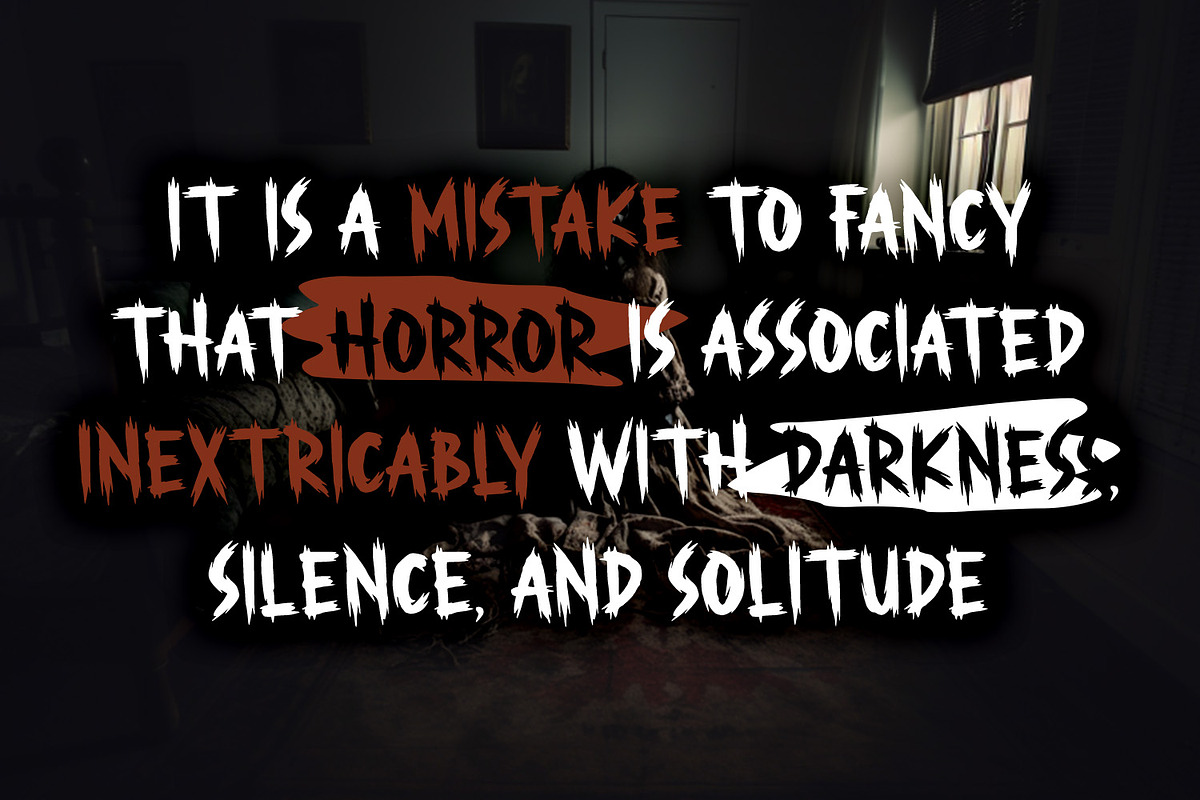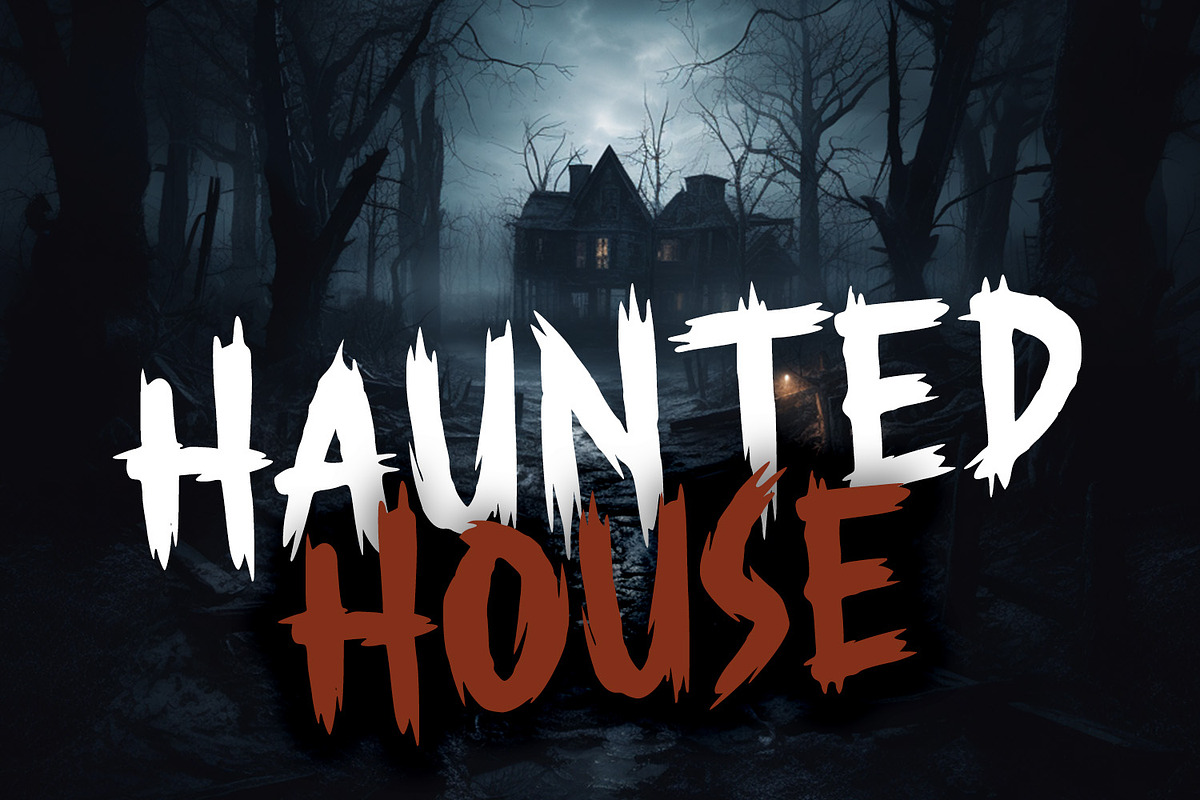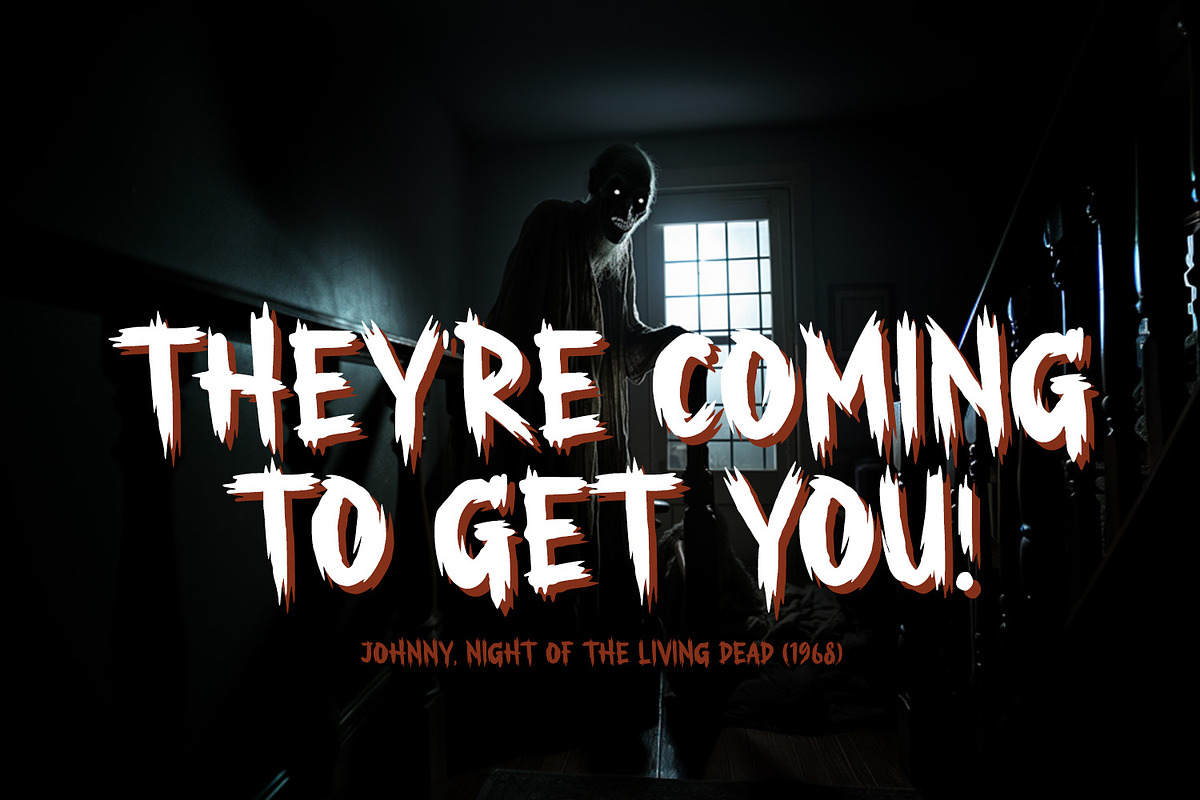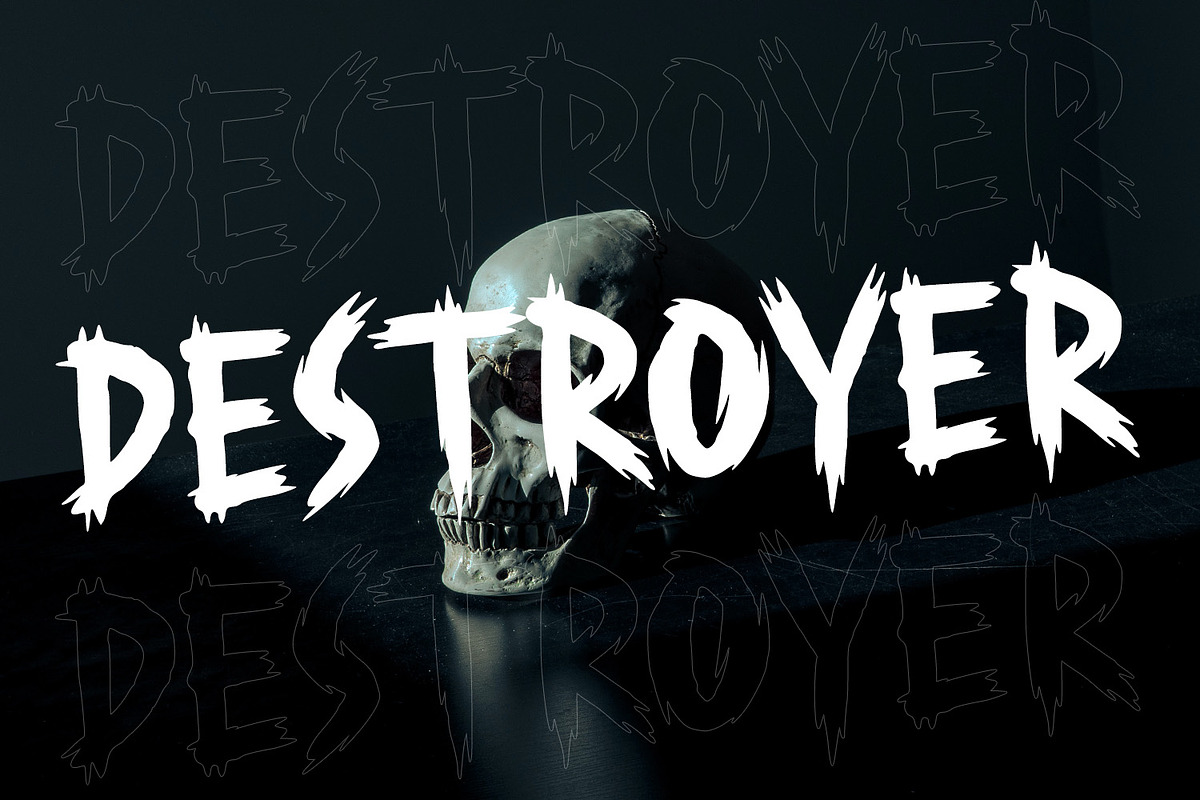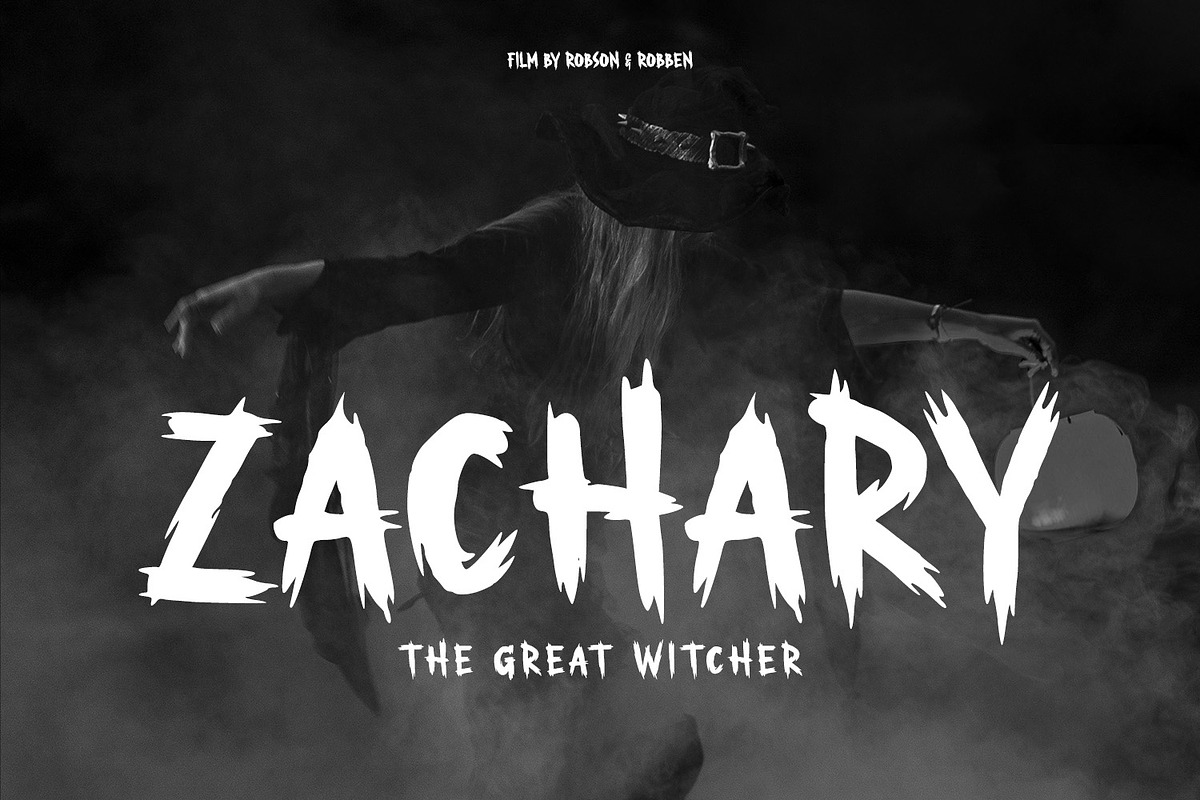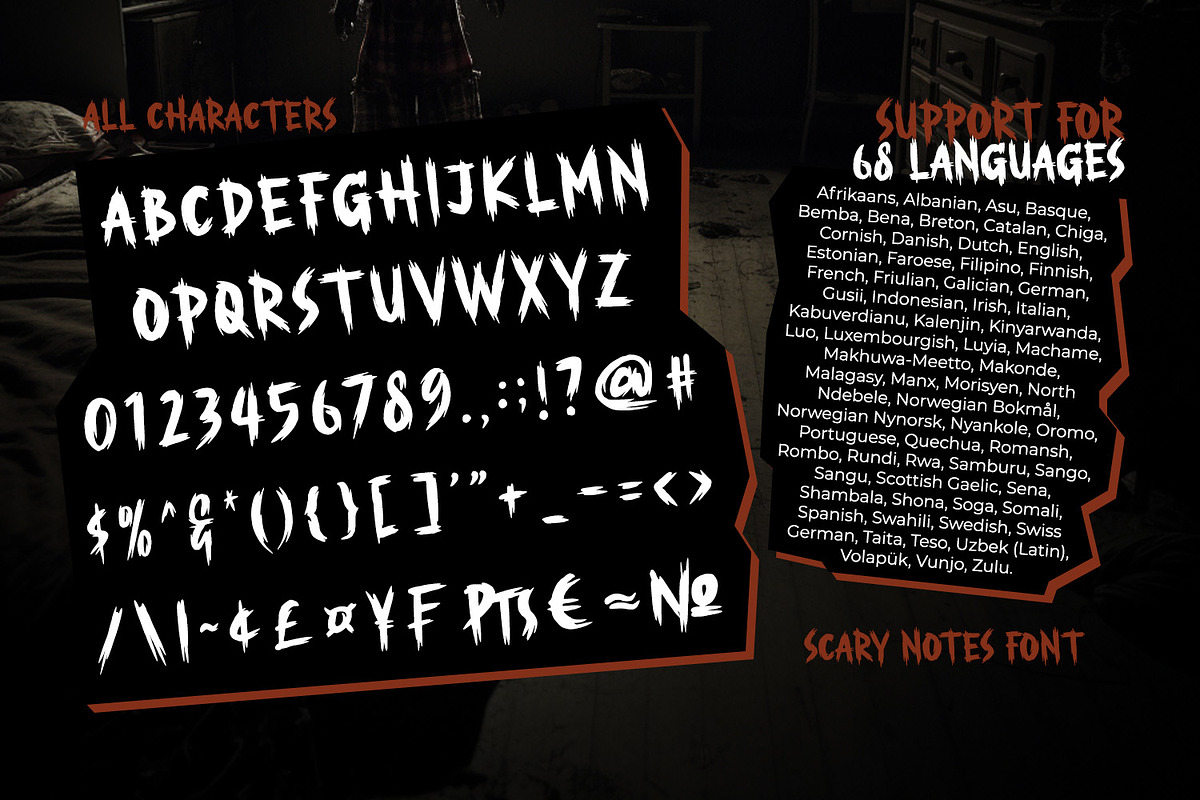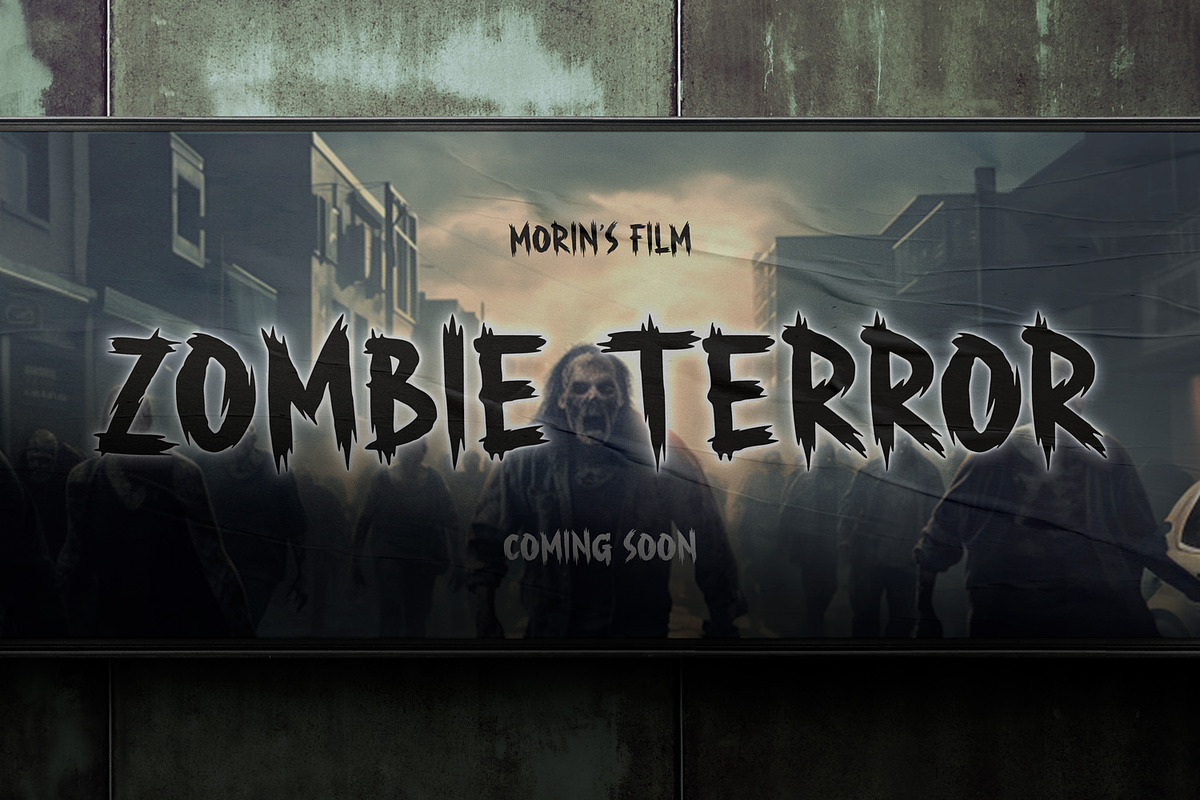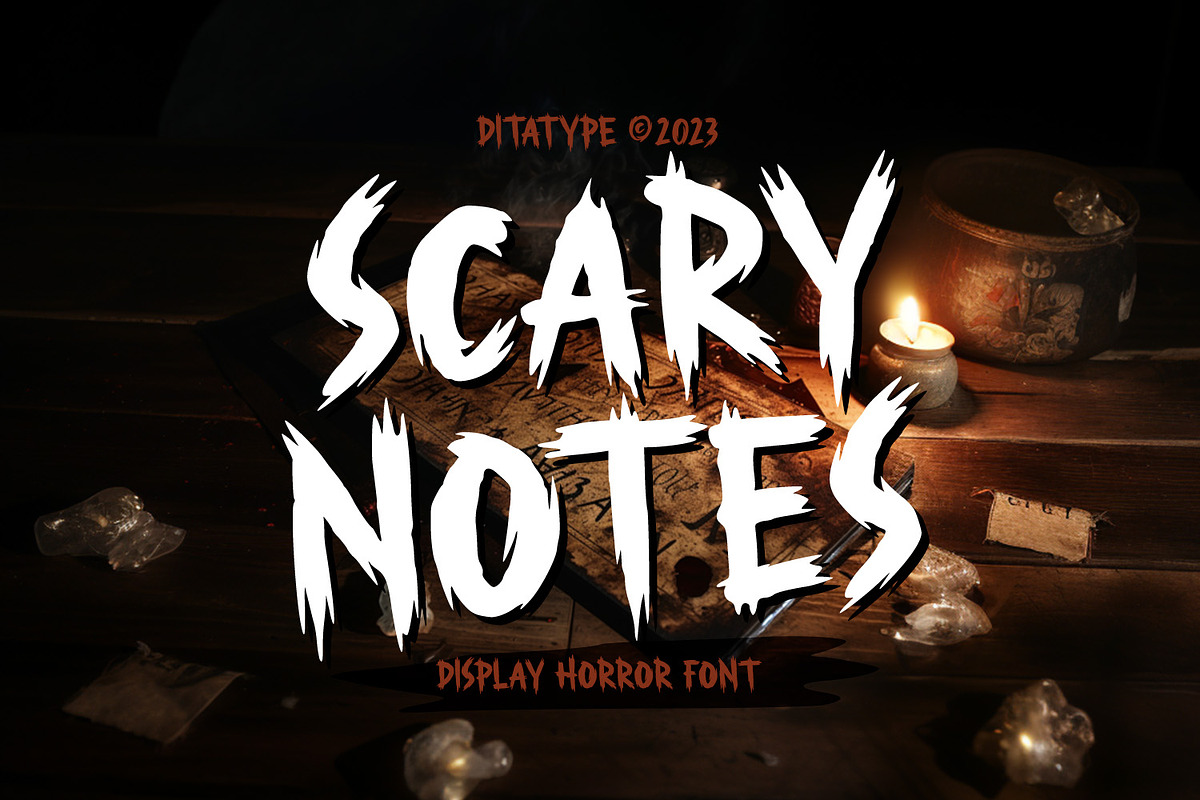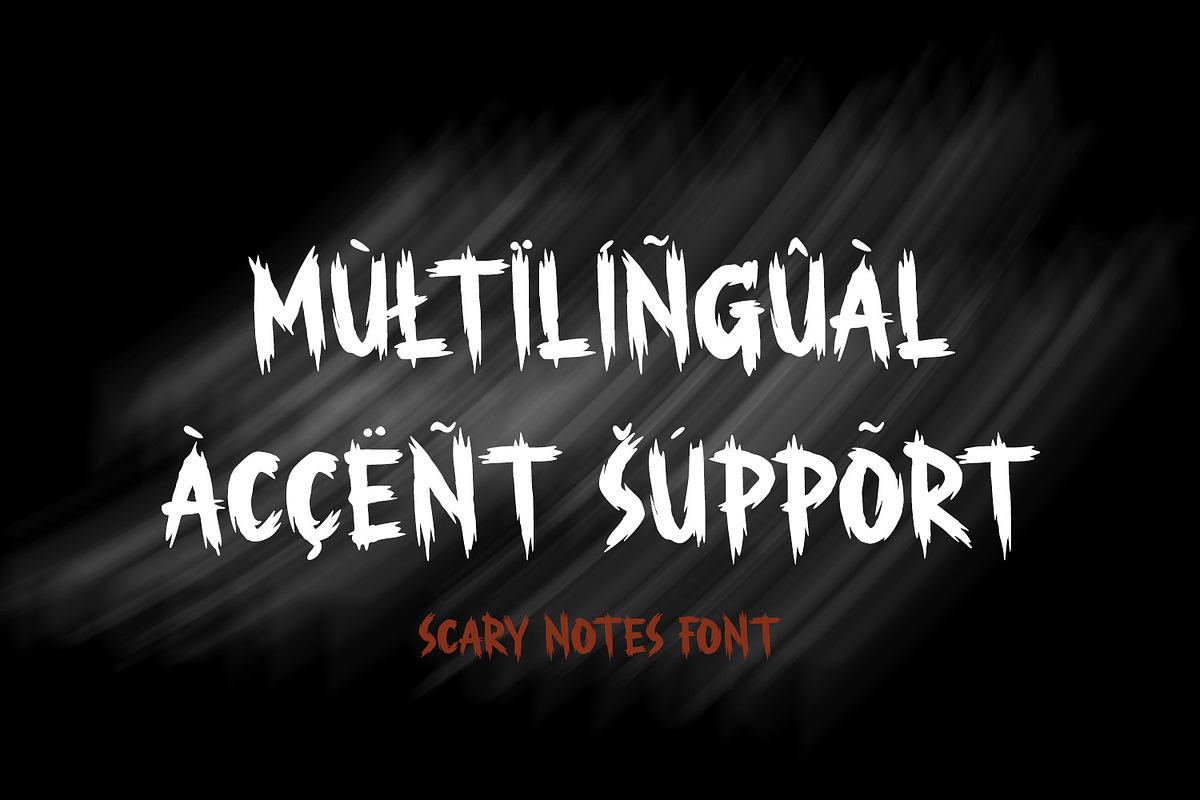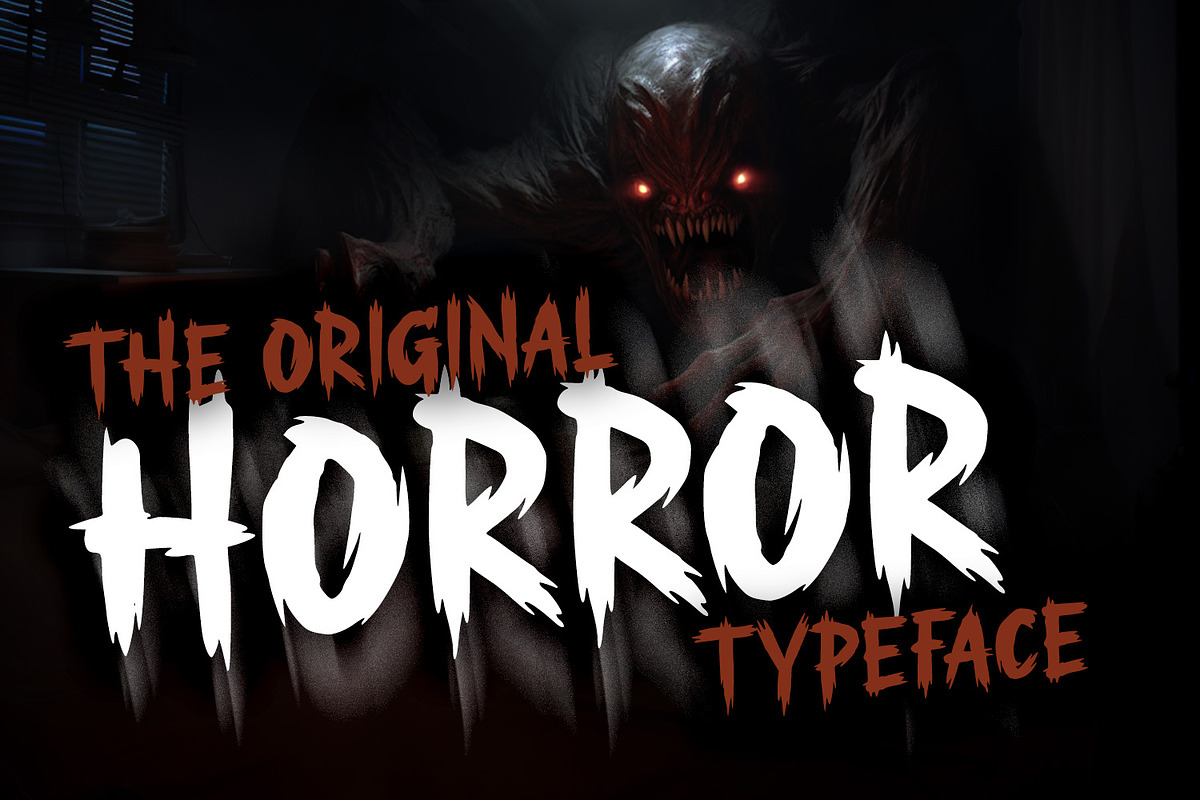
Scary Notes
Scary Notes is a spine-chilling display font designed to evoke fear and horror. With its big letters and bold weight, this font demands attention and is sure to send shivers down your spine. The details of the letters are meticulously crafted to resemble brush strokes, adding an unsettling and handcrafted touch to the font. Each letter in Scary Notes is bold and commanding, creating an impactful presence that cannot be ignored. The big size of the letters adds to the font's intensity. The brush details in this font give the font an organic and chaotic appearance, reminiscent of chilling hand-painted writings. These details add a sense of unpredictability and terror, immersing the viewer into the world of horror and fear. For the best legibility you can use this font in the bigger text sizes. Enjoy the available features here.
Scary Notes fits in headlines, logos, movie posters, flyers, invitations, branding materials, print media, editorial layouts, headers, and any project that requires a terrifying touch. Find out more ways to use this font by taking a look at the font preview.